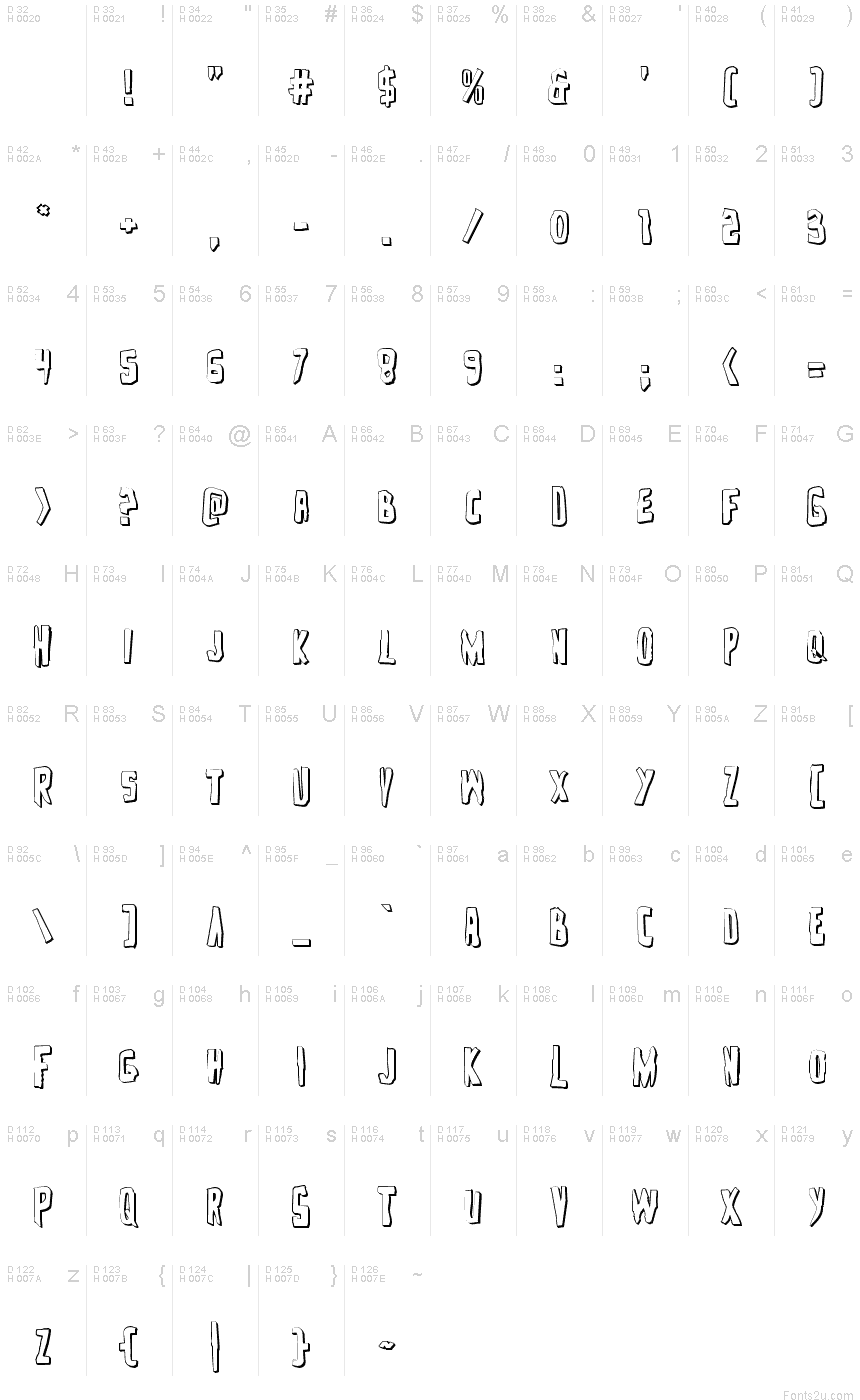
Zakenstein 3D by Daniel Zadorozny of Iconian Fonts is a free cartoon outline font with tall, uneven letters and a lively hand-drawn edge. Offset shadows give the lettering a chunky, cutout-like depth, and the changing stroke widths keep each form slightly unruly.
Posters are a natural setting for its oversized comic styling, particularly for comedy events and playful entertainment graphics. It also suits game packaging and children's merchandise, where the letters can become part of a bold illustrated scene.
Zakenstein 3D